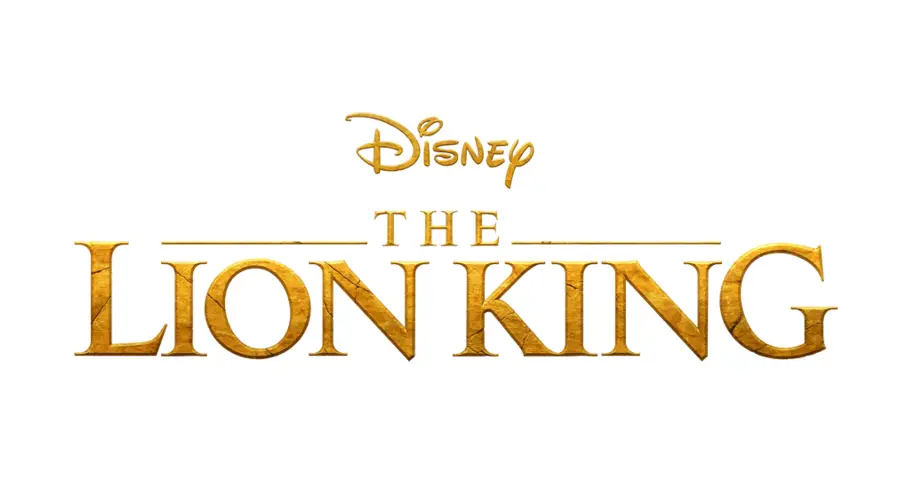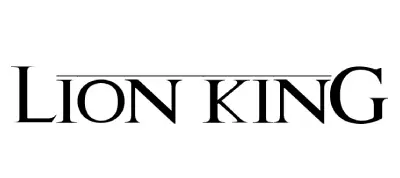
The Lion King Font is associated with Disney’s iconic animated film The Lion King (1994). This typeface evokes nostalgia and is ideal for branding, logo design, and creative projects inspired by the movie’s majestic and regal themes. While the official logo font is custom-made, a recreated version by Melanie Blanco is widely recognized as the “Lion King Font.”
Dimitri Font by Fontalicious
This is a replica font designed to closely match the Lion King logo. It features bold, serif-style lettering with a slightly distressed texture, making it perfect for recreating the iconic look.
Goudy Titling Semi Bold by Steve Matteson
A similar font with a classic, elegant serif design. While not an exact match, it shares the bold and regal characteristics of the Lion King Font.